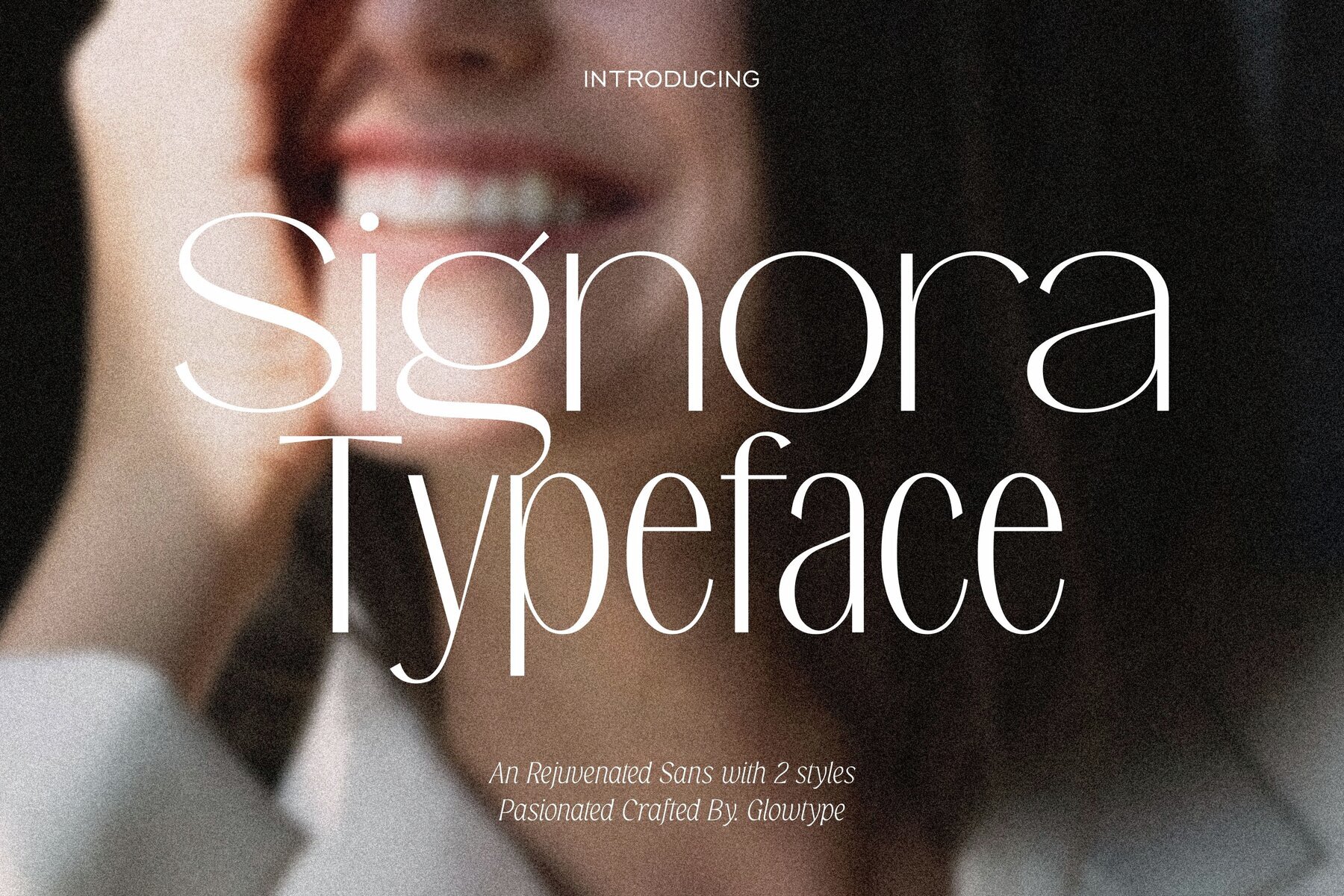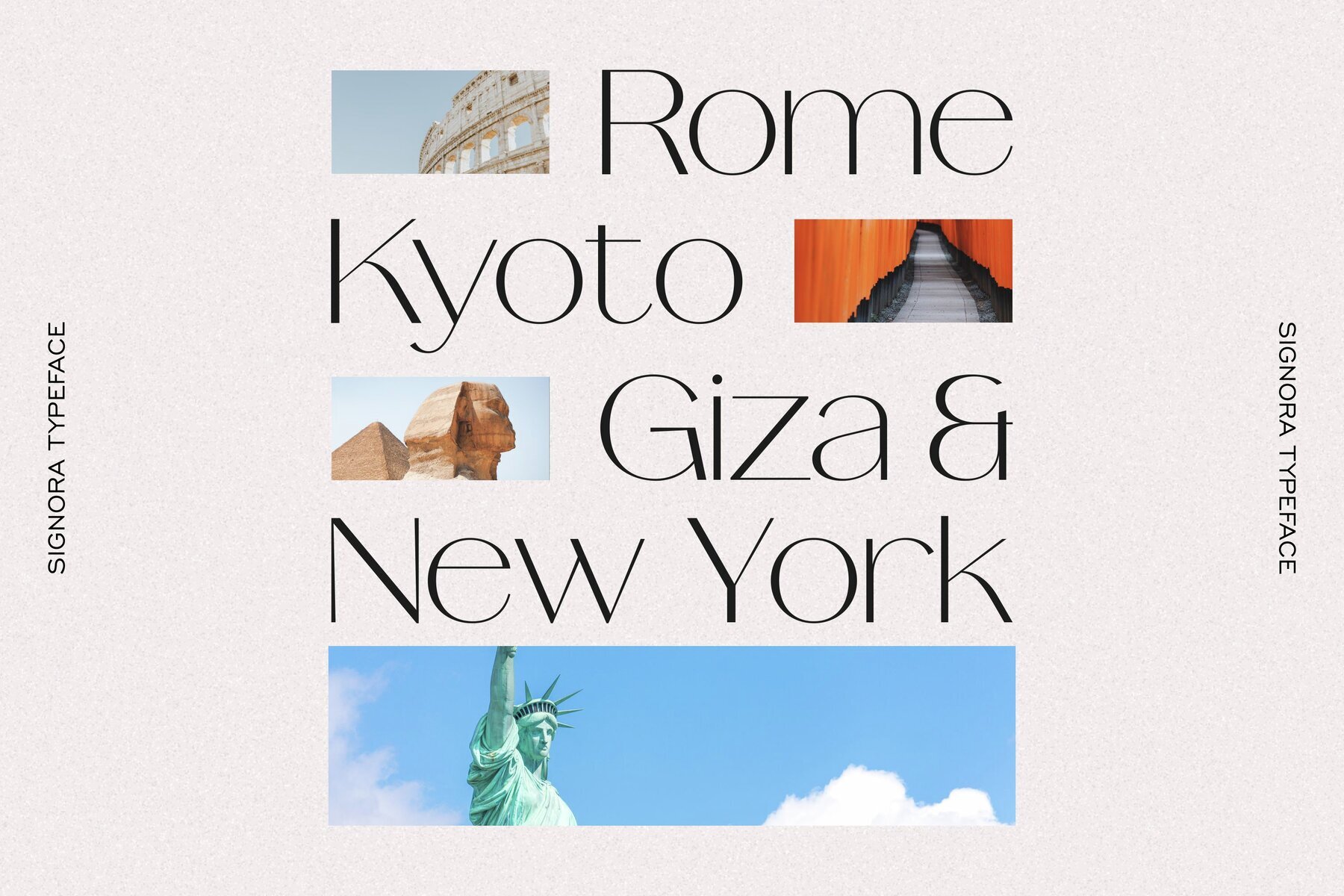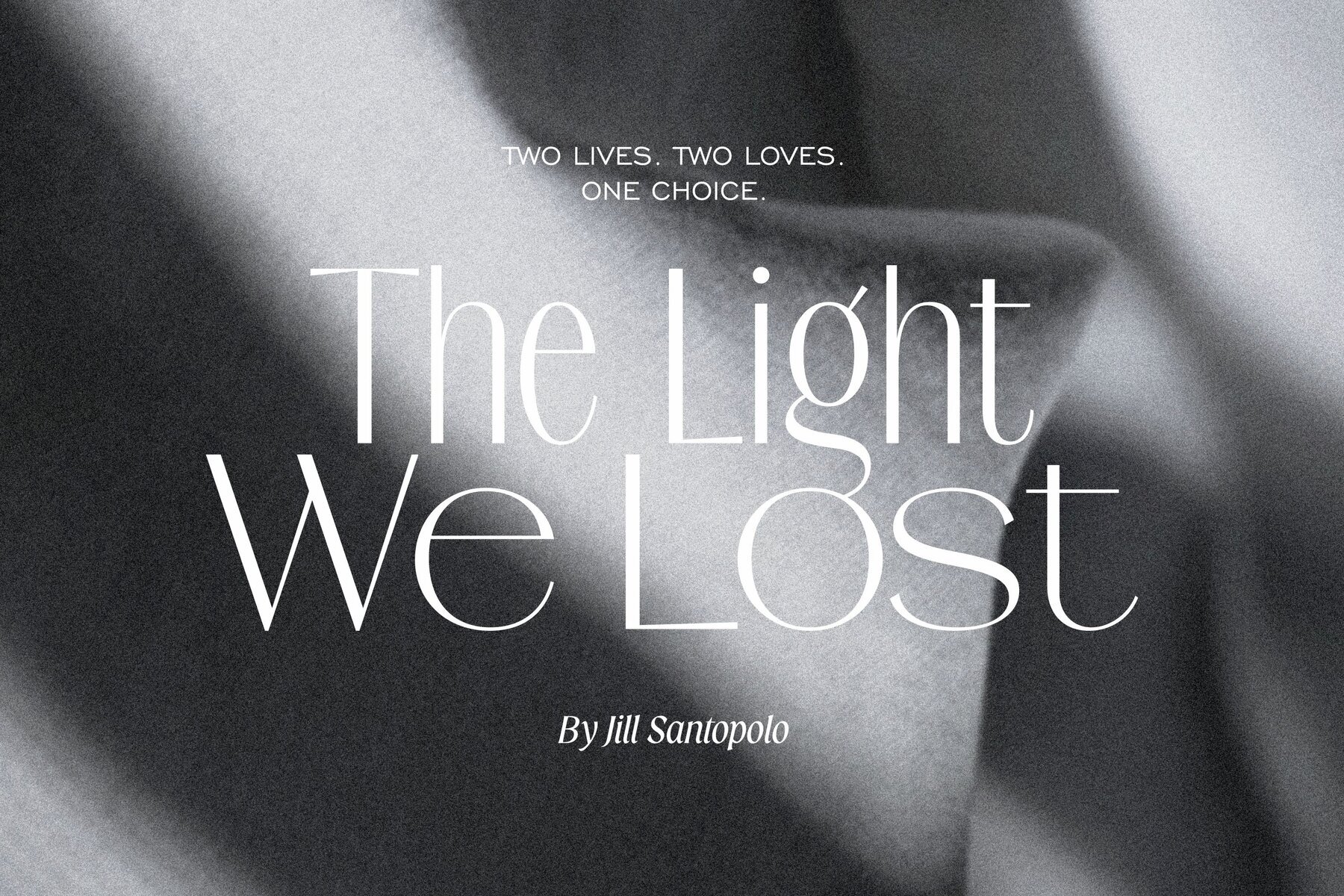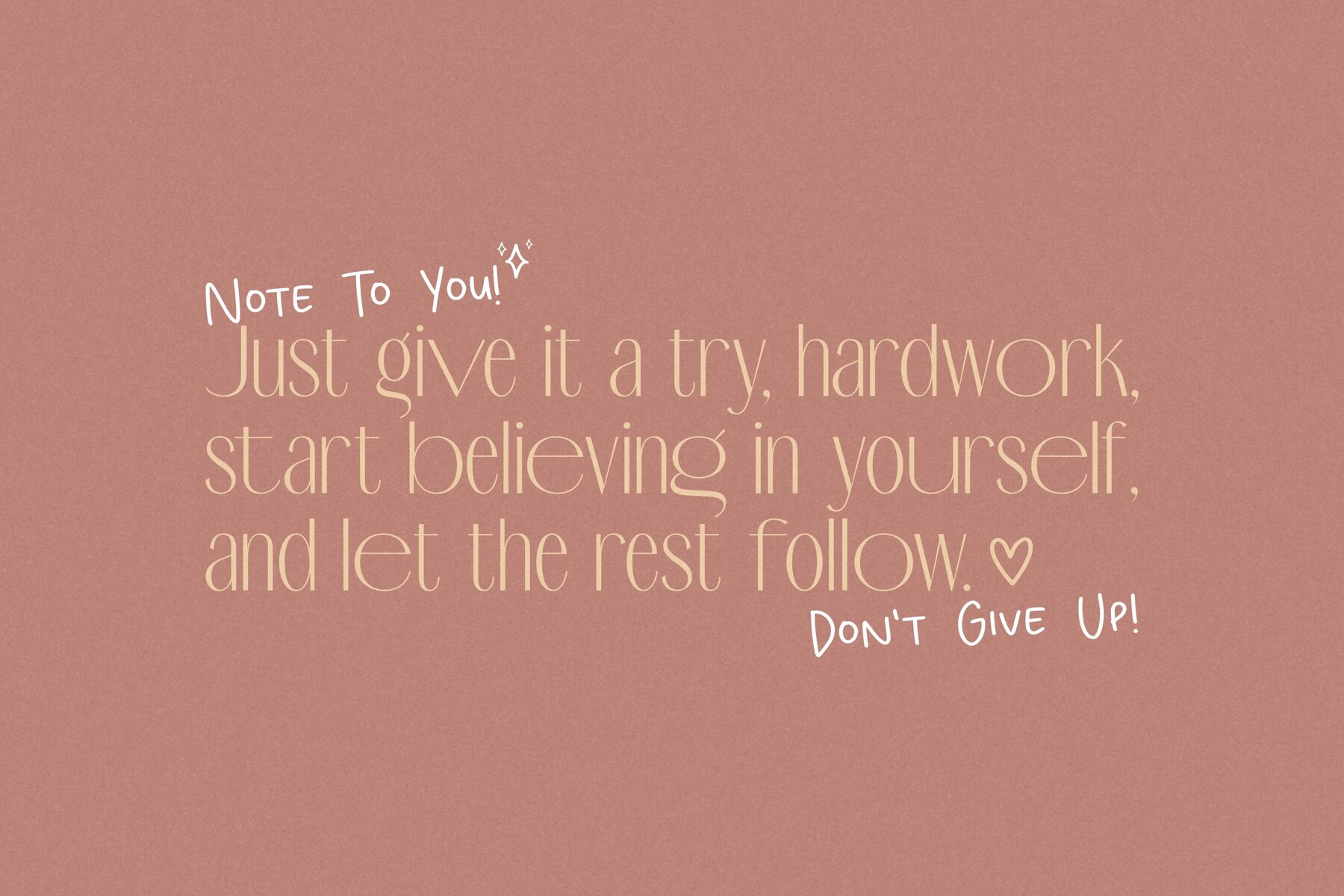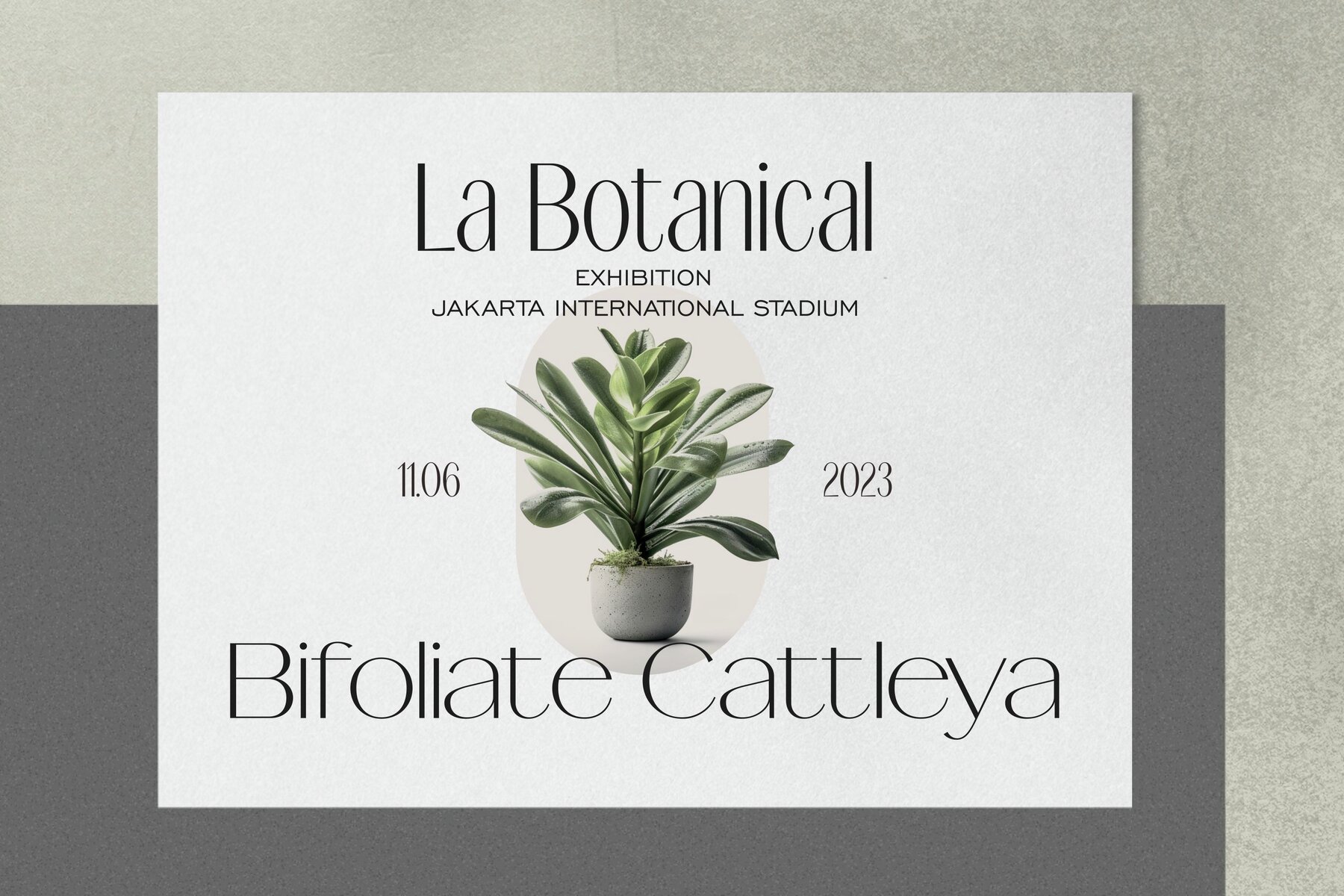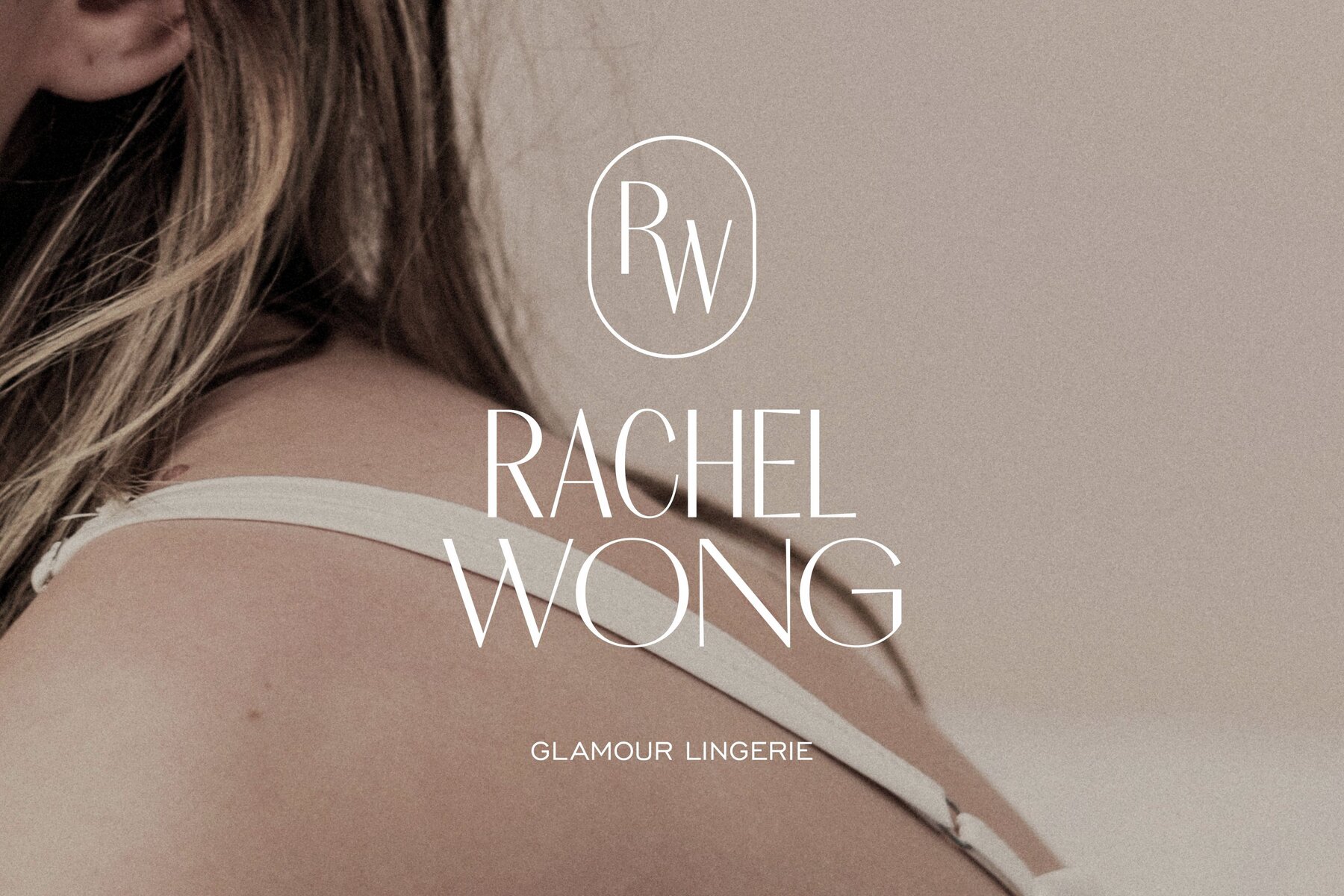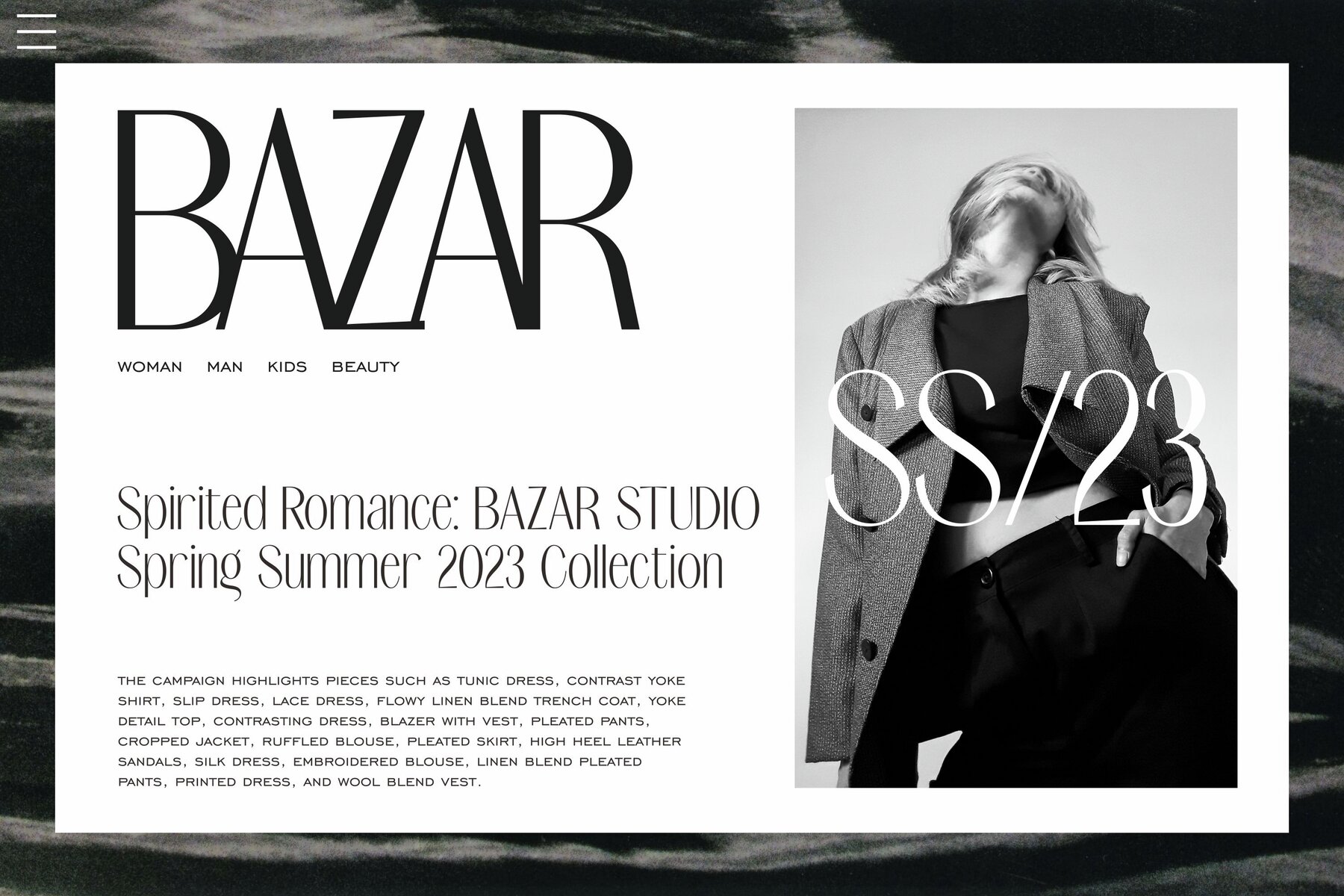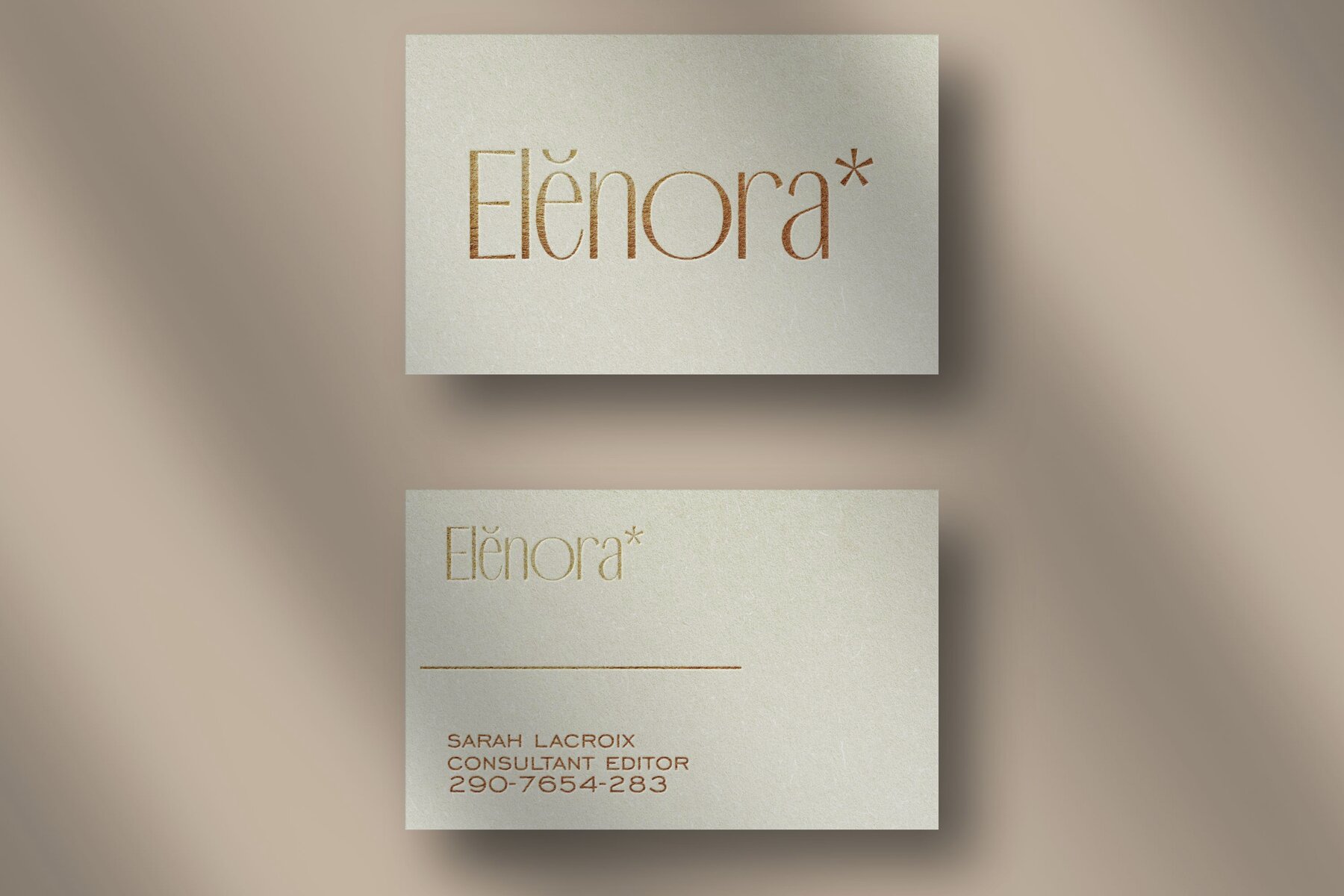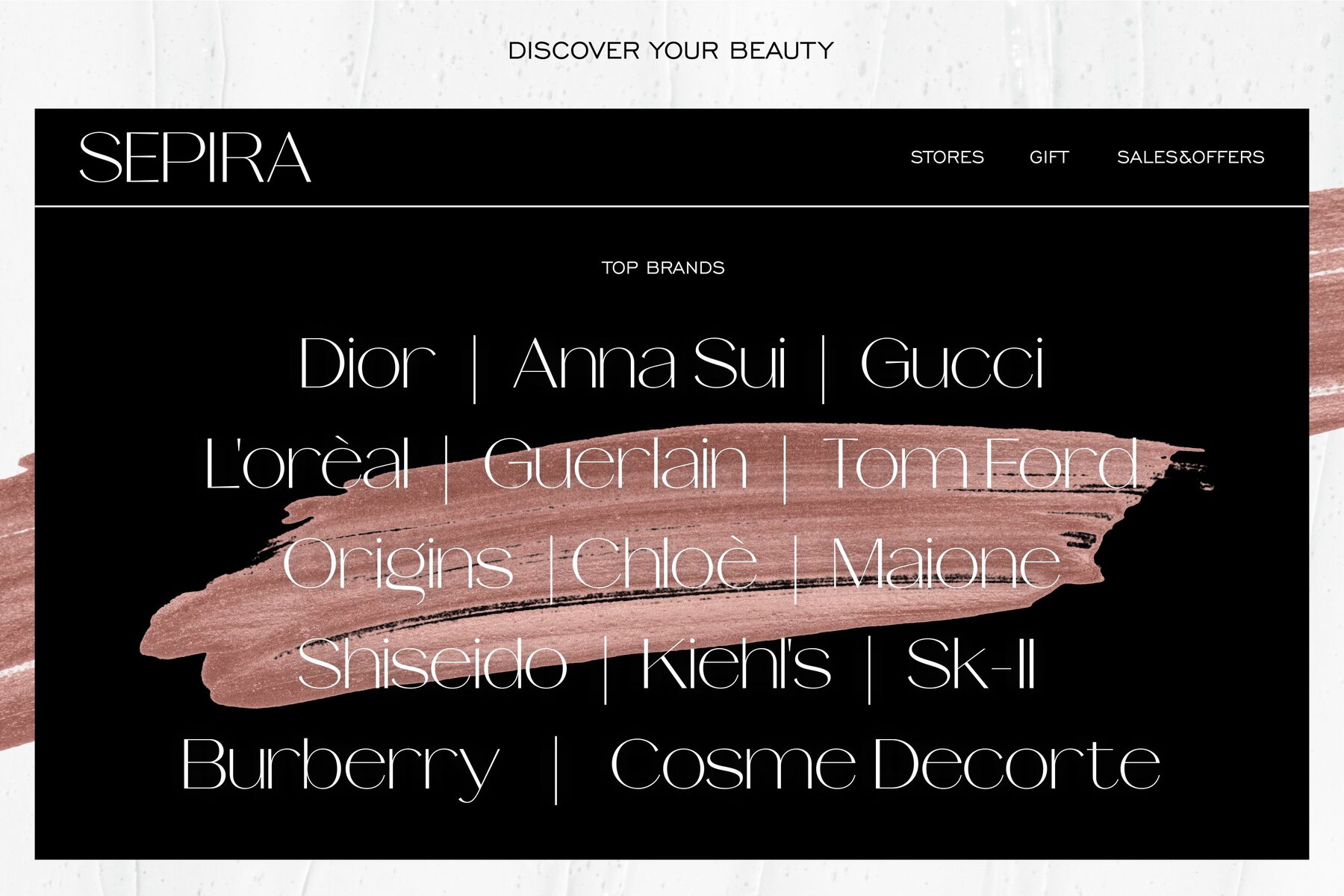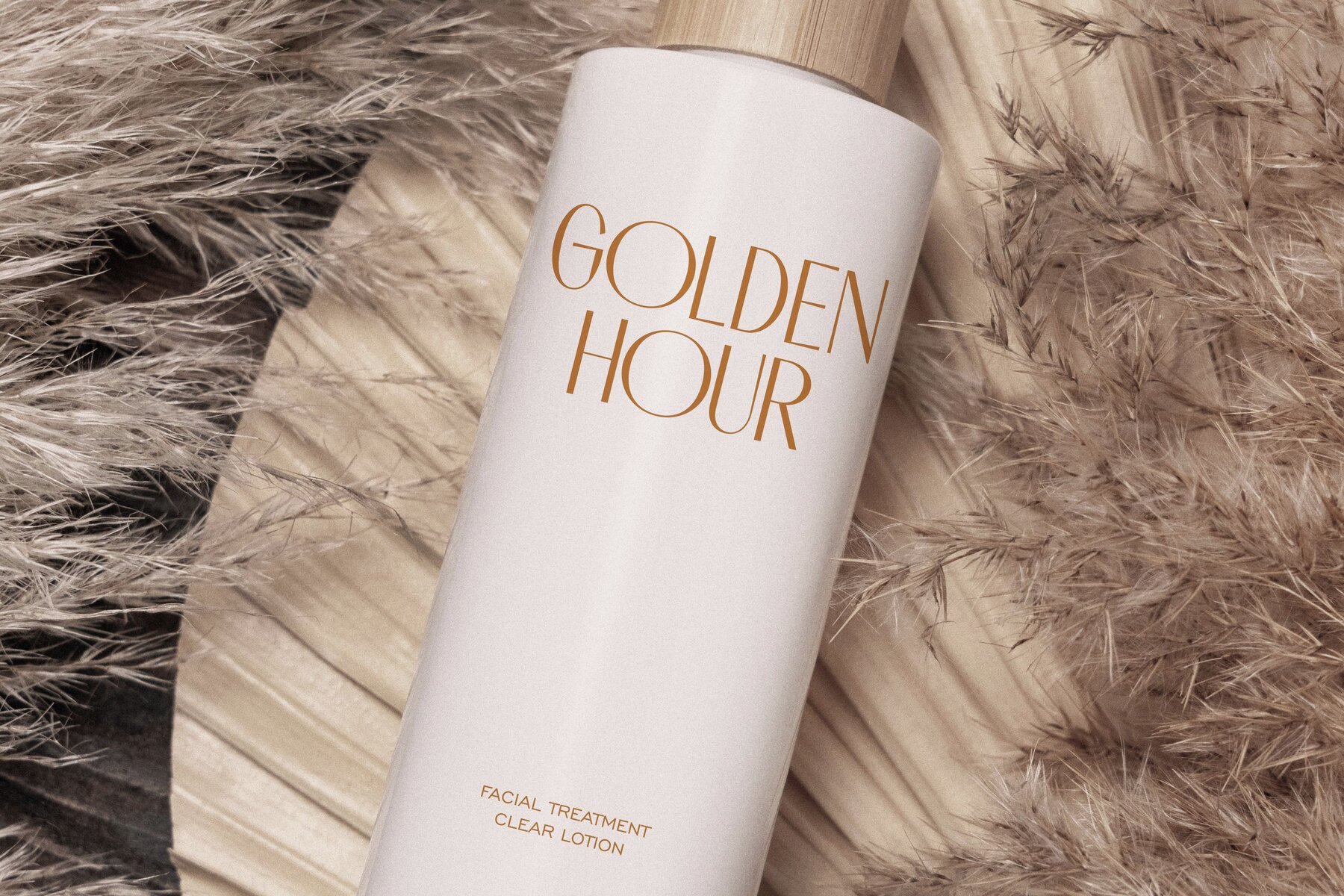
Signora Font
Signora Regular
Signora Wide
Elevate your design projects with the Signora Typeface, a refined sans serif that embodies beauty and elegance. With both regular and wide styles, this typeface offers versatility to effortlessly enhance your creative ideas. Signora is your go-to choice for adding a touch of glamor to branding, stationery, beauty products, magazines, wedding invitations, and more.Signora Typeface: Timeless Elegance